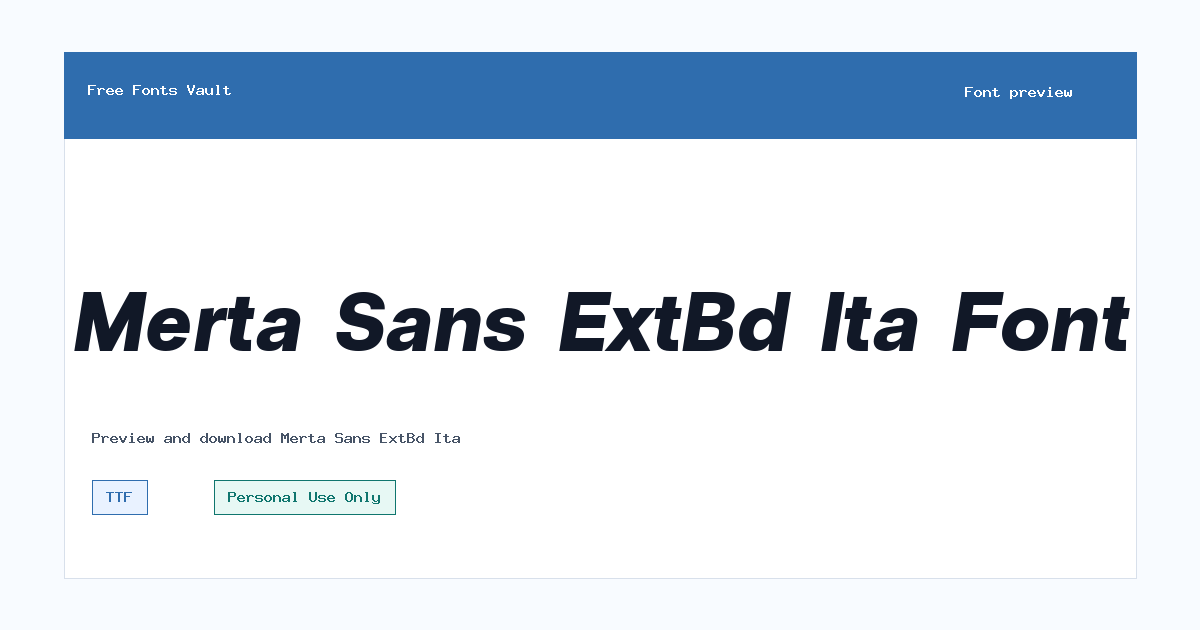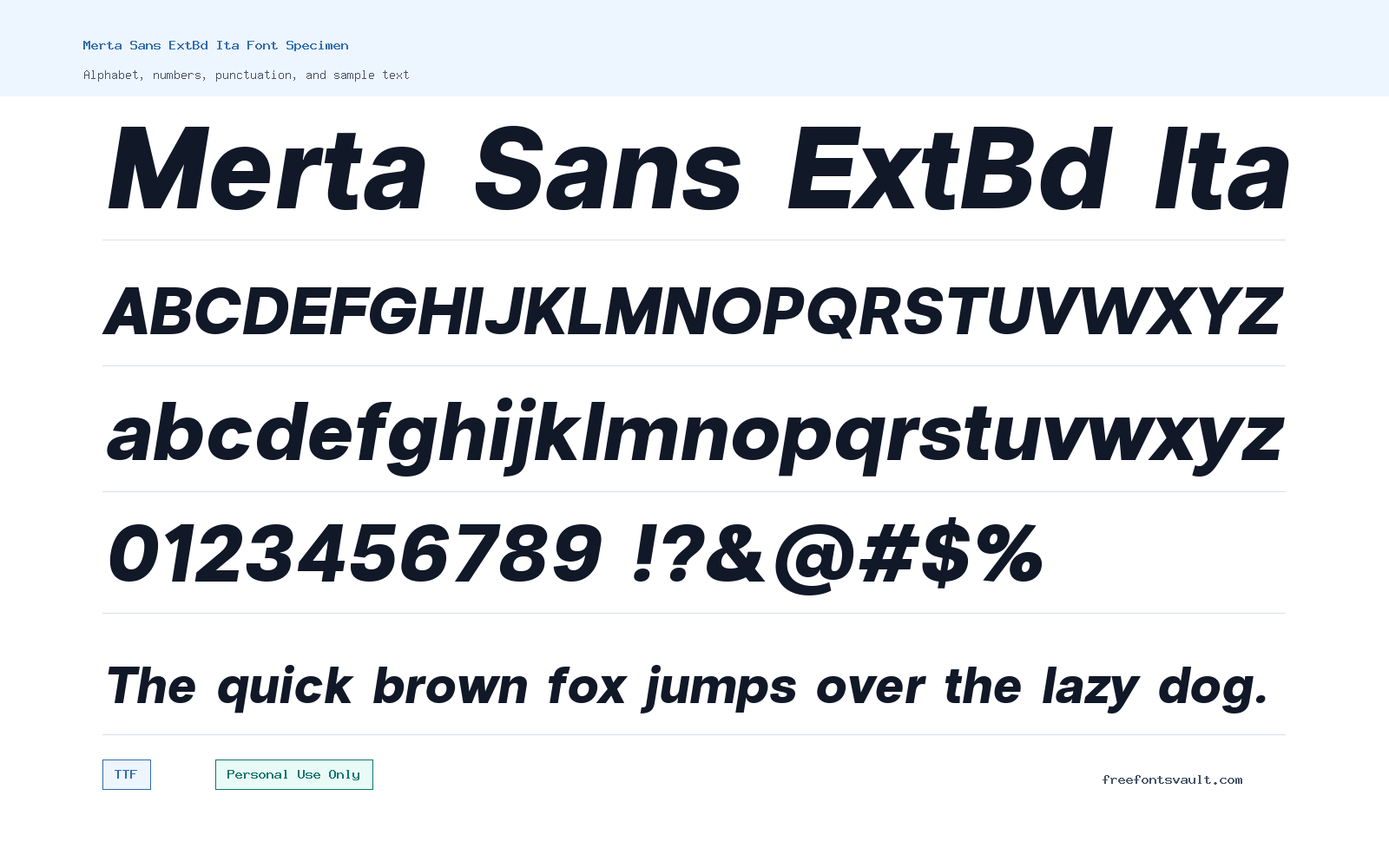
Merta Sans ExtBd Ita
Merta Sans ExtBd Ita is a bold italic sans serif font by Diki Pradipta Tri Atmojo of Lettertype Studio Co. It is suited to visitors who want to test a strong, slanted display style in the preview tool before using it in personal design work.
About Merta Sans ExtBd Ita
Merta Sans ExtBd Ita has the direct feel of a sans serif with the added movement of an italic style. The extra-bold naming points to a heavy cut, while the italic angle gives words a forward push. That makes it more useful for short, confident text than for long reading blocks. Try it first in names, headers, badges, quote graphics, poster lines, and logo roughs where the text needs weight and motion at the same time.
Because this is a single TTF variant, it works best when treated as a display accent rather than a full typography system. In logo work, test the font in uppercase, title case, and lowercase before choosing a direction. For posters and web mockups, use it for headlines, callouts, buttons, or short section labels, then pair it with a quieter regular sans serif for paragraphs. Heavy italic letters can lose clarity at small sizes, so check spacing, word length, and contrast carefully in the preview.
- Bold italic sans serif appearance for strong short text
- Single included style, useful for headlines, logo drafts, posters, and mockups
- Logo concepts and wordmark sketches for personal projects
- Poster headlines, event graphics, and bold social media text
- Website hero mockups, buttons, banners, and short interface labels
- Brand mood boards where a heavy italic sans serif is being tested
- Presentation covers, quote cards, and display typography experiments
Use the preview box to test the exact words you plan to design with. Heavy italic fonts can look excellent in short phrases but become crowded in long sentences. Start with generous letter spacing for all-caps headlines, reduce the size slowly, and check whether the counters and joins stay readable. For pairings, choose a simple upright sans serif for body text so Merta Sans ExtBd Ita can stay focused on emphasis. Avoid pairing it with another loud italic display face unless you want a very busy layout.
What kind of font is Merta Sans ExtBd Ita?
It is a sans serif font in a bold italic style. The style is best suited to short display text such as headlines, logo drafts, posters, and graphic titles.
Is this good for body text?
It is better for display use than body copy. The heavy italic style can feel dense in long paragraphs, so use it for emphasis and pair it with a more neutral font for reading text.
What should I pair it with?
Pair it with a clean upright sans serif in a regular or medium weight. That keeps paragraphs readable while letting Merta Sans ExtBd Ita handle the bold headline or accent role.